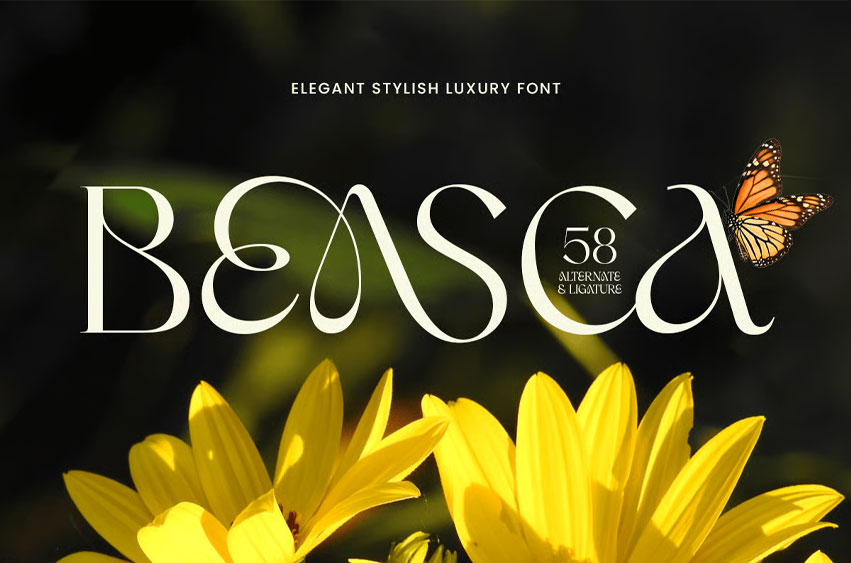
Beasca Font
Beasca Font is an elegant and stylish luxury font designed to elevate your creative projects with sophistication and refinement. Perfect for logos, high-end branding, editorial layouts, packaging, and digital or print media, it offers a timeless and polished appearance.
With graceful letterforms and balanced proportions, BEASCA provides a premium look while maintaining readability and versatility. It’s the ideal choice for designers seeking a luxurious, chic, and professional typeface.
BEASCA – Elegant Stylish Luxury Font Features
• Elegant and stylish character set
• Perfect for luxury branding and premium projects
• OpenType features for added versatility